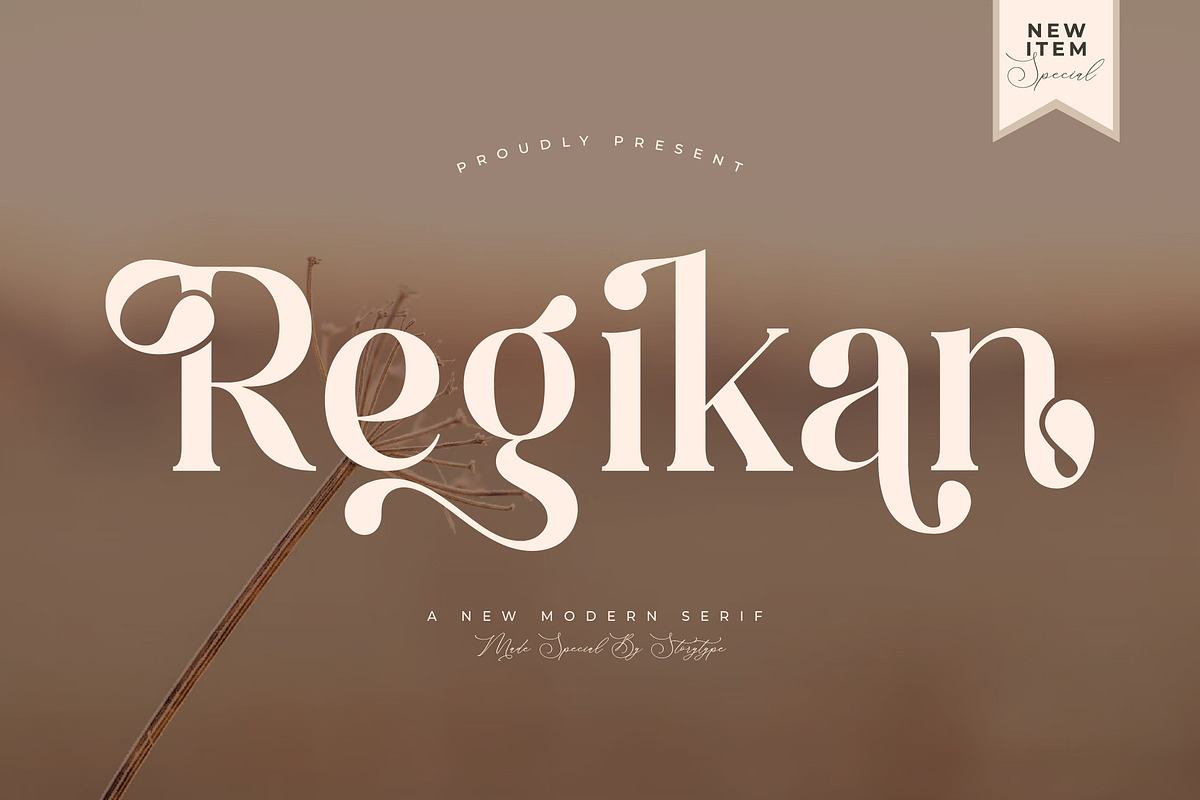
Regikan A New Modern Serif Font Free Download
Regikan – A New Modern Serif Font Free Download is a contemporary and elegant serif typeface designed to bring sophistication and clarity to any design. Perfect for branding, editorial layouts, websites, and packaging, Regikan offers clean lines and refined details for a modern, professional look. Please note that you must purchase this font for commercial use, but it is available as a free download for testing purposes. Elevate your design projects with Regikan – A New Modern Serif Font Free Download, and enjoy the perfect balance of timeless elegance and modern style.